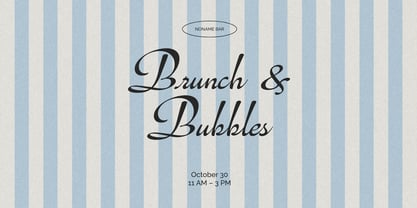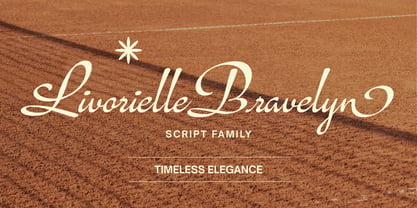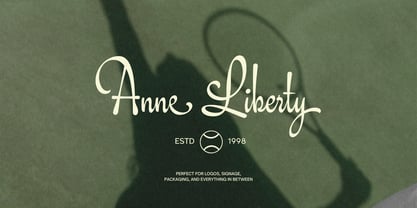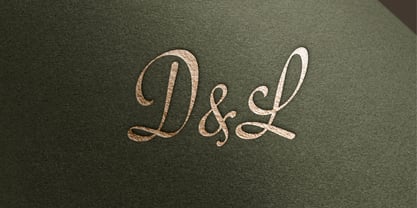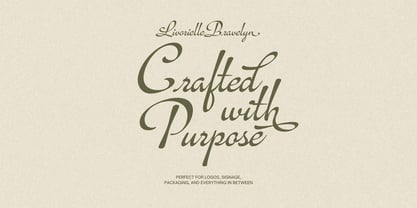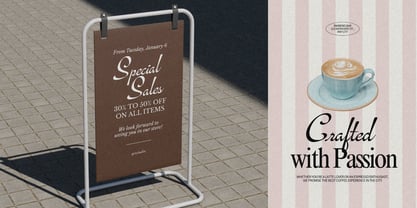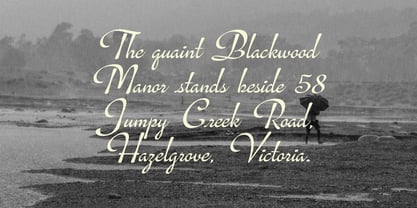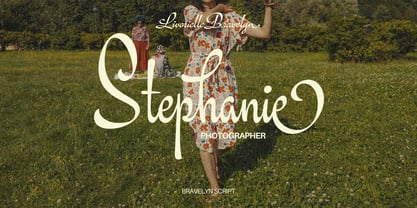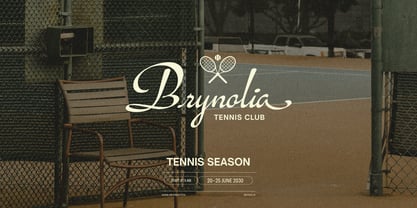
Livorielle Bravelyn
by Get Studio
The Livorielle Bravelyn Font Family was designed by Hermansyah and published by Get Studio. Livorielle Bravelyn contains 6 styles and family package options. More about this family
Bravelyn is a graceful script family inspired by classic handwriting, vintage romance, and refined editorial aesthetics. Designed with smooth flowing curves and delicate details, Bravelyn brings a natural sense of sophistication to every word it touches.
Whether you're creating luxury branding, wedding stationery, product packaging, social media content, or signature logos, Bravelyn offers the flexibility to express your ideas beautifully and effortlessly.
The family includes six carefully crafted styles, allowing you to move seamlessly between classic, expanded, and slanted compositions while maintaining a cohesive and elegant look.
From intimate handwritten notes to premium brand identities, Bravelyn helps transform ordinary text into memorable visual statements.